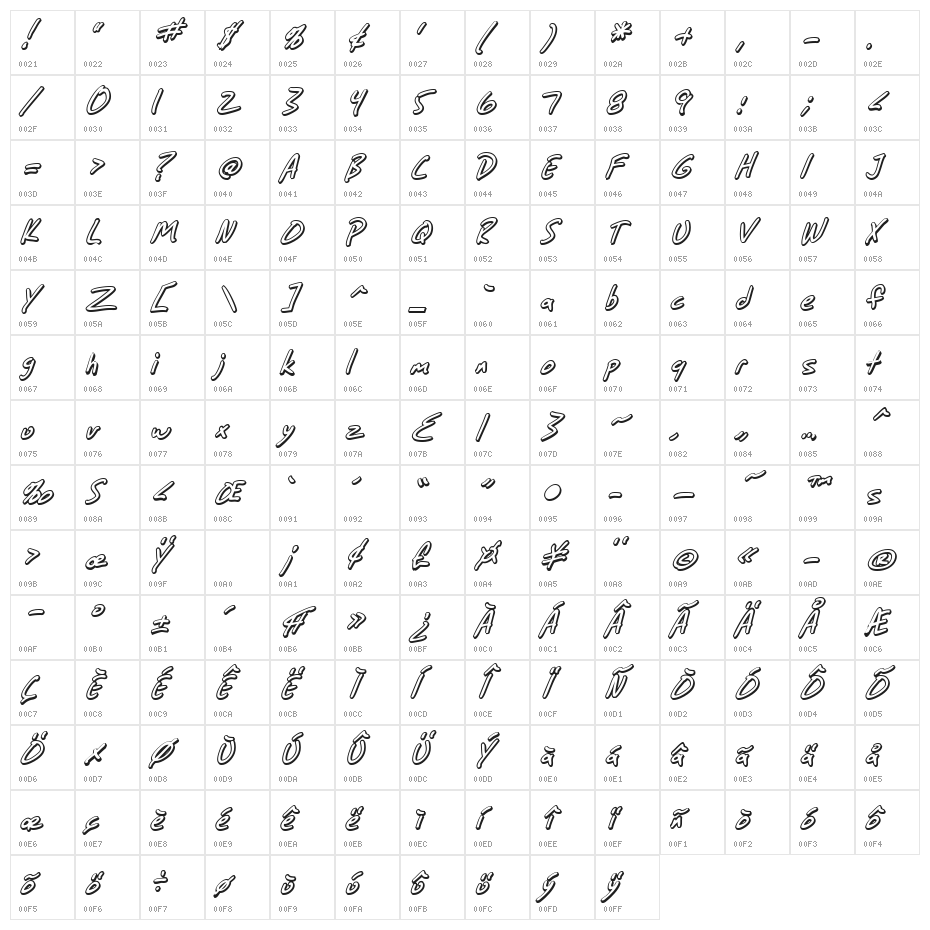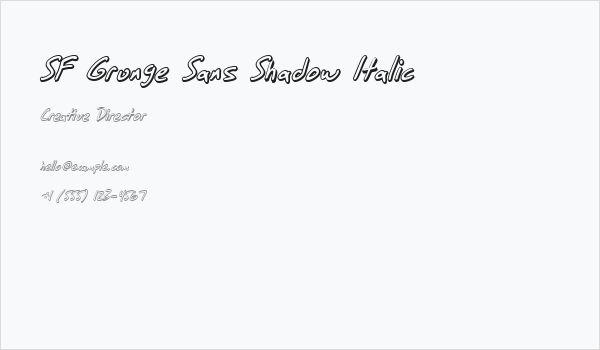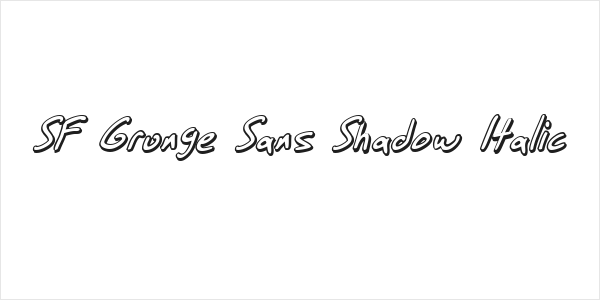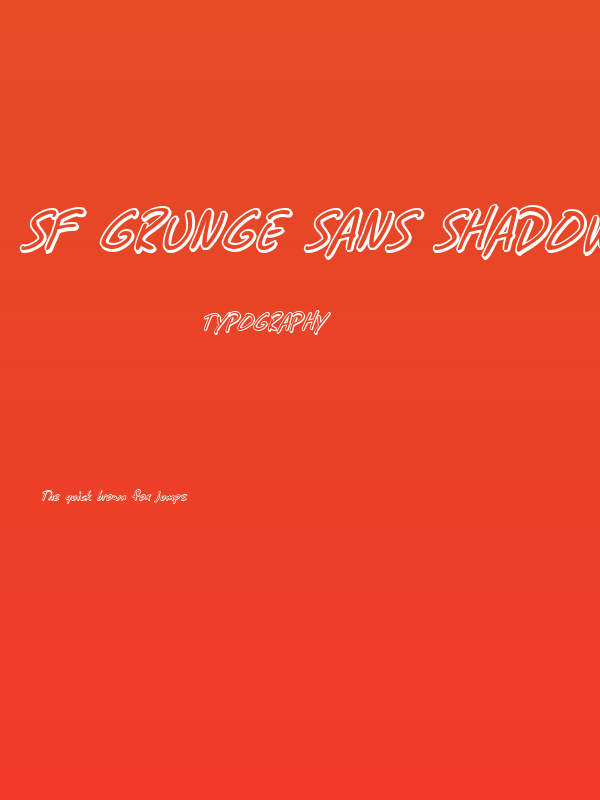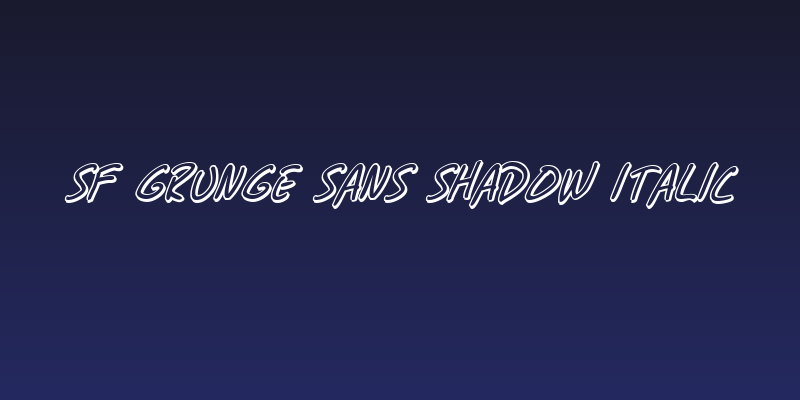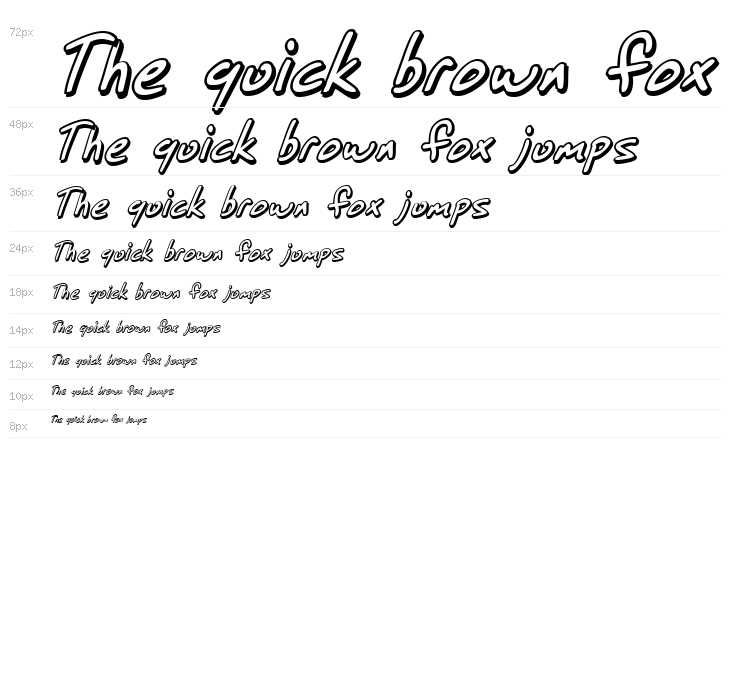
SF Grunge Sans Shadow Italic Font
SF Grunge Sans Shadow Italic Description
This font features a bold, italicized style with a distinct shadow effect that gives it a three-dimensional appearance. The characters are designed with a grunge aesthetic, incorporating irregular edges and a hand-drawn feel. The uppercase and lowercase letters maintain a consistent flow, while the numerals and special characters complement the overall design. The font's playful yet edgy look makes it suitable for creative projects that require a standout typeface.
| Overall Style | Modern, Grunge |
| Proposed Projects | Ideal for posters, album covers, streetwear branding, and edgy graphic designs. |